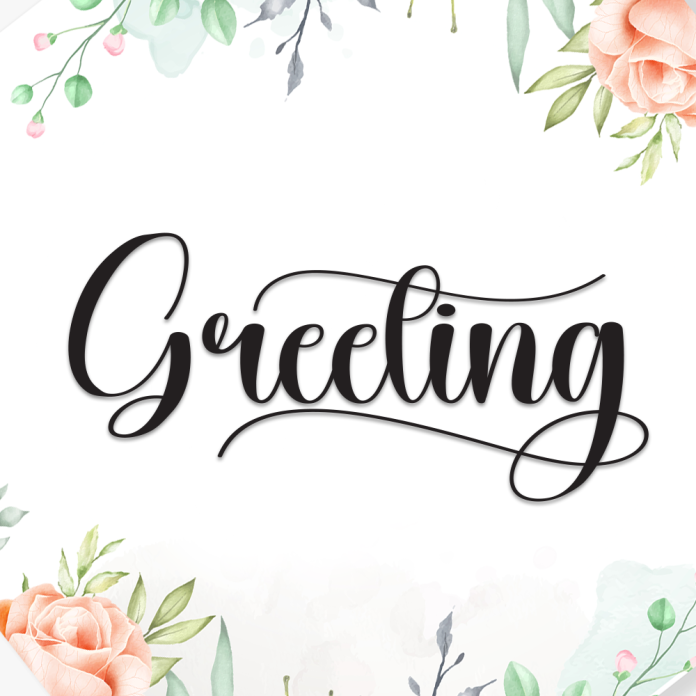
Greeting is a heartfelt handwriting font that captures the warmth of a handwritten message. With its soft curves and friendly flow, this font is perfect for expressing emotions, sharing kind words, and adding a personal touch to your designs.
Ideal for greeting cards, invitations, quotes, social media content, and personal branding, Greeting brings sincerity and charm to every letter.
Soft and expressive handwritten style
Natural letterforms with a warm, personal feel
Great for cards, stationery, heartfelt messages, and lifestyle branding
Send love and kindness with Greeting, the handwriting font that feels like a warm hello.